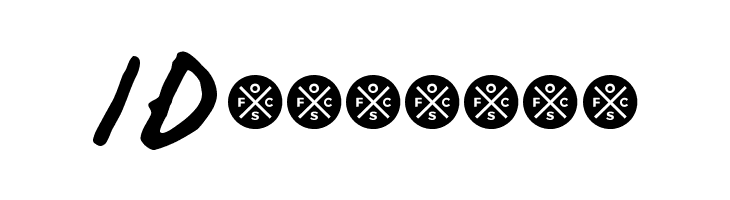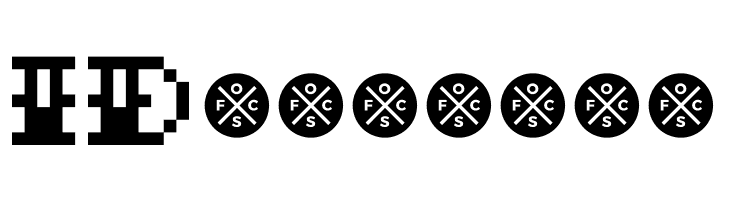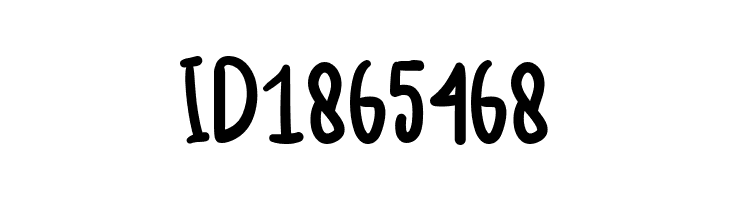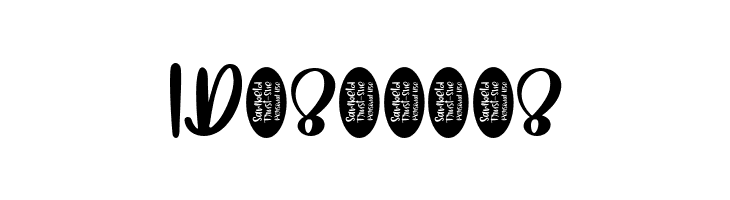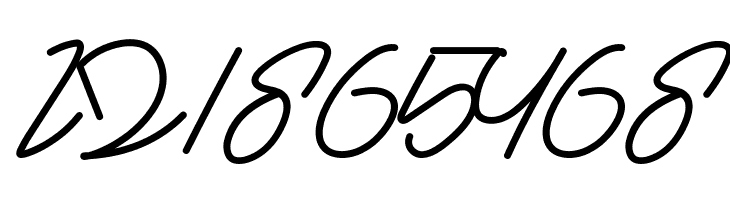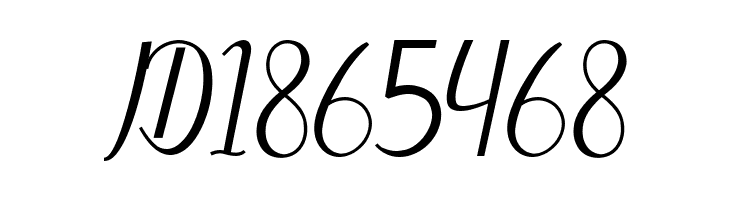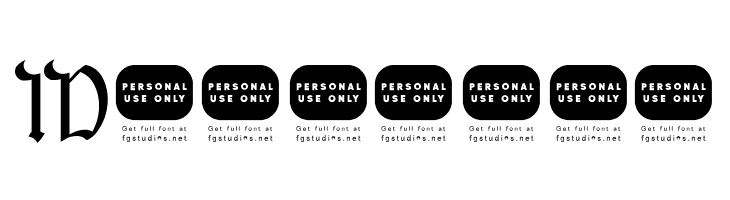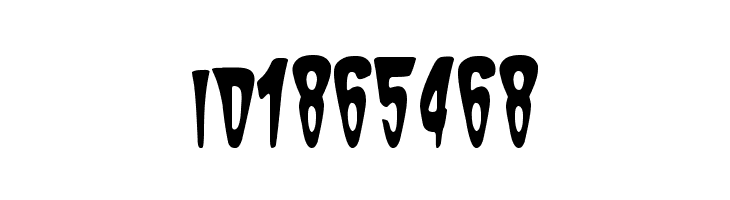
Ornate, illustrative font with unique character drawings.
A playful, bold handwritten font with a dynamic and informal style.
A pixelated, retro-style font with a bold, digital appearance.
A decorative, hand-drawn font inspired by traditional sailor tattoos.
A classic blackletter font with sharp, angular lines and intricate detailing.
An elegant script font with flowing, cursive strokes and decorative loops.
A bold, dramatic font with sharp angles and an edgy appearance.
A bold, playful script font with a handwritten style.
A playful, bold handwritten font with rounded, irregular letterforms.
A fluid and elegant handwritten cursive font with seamless connections.